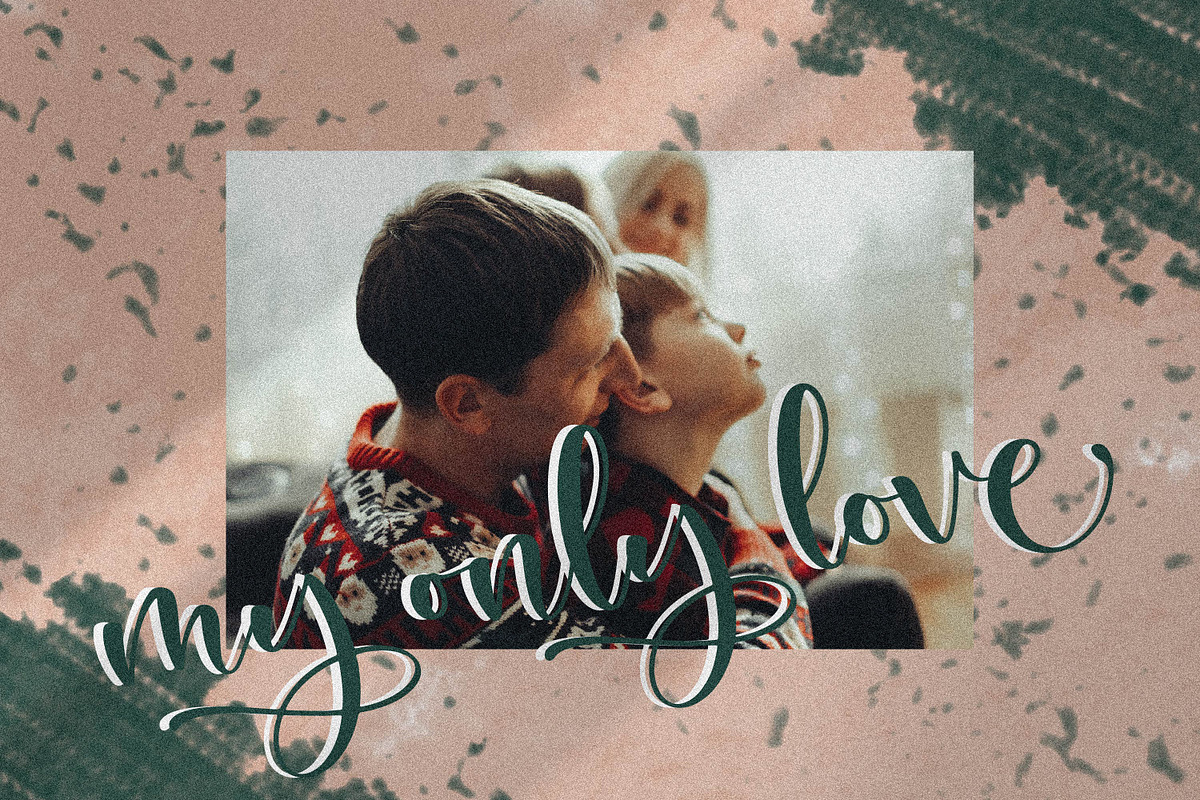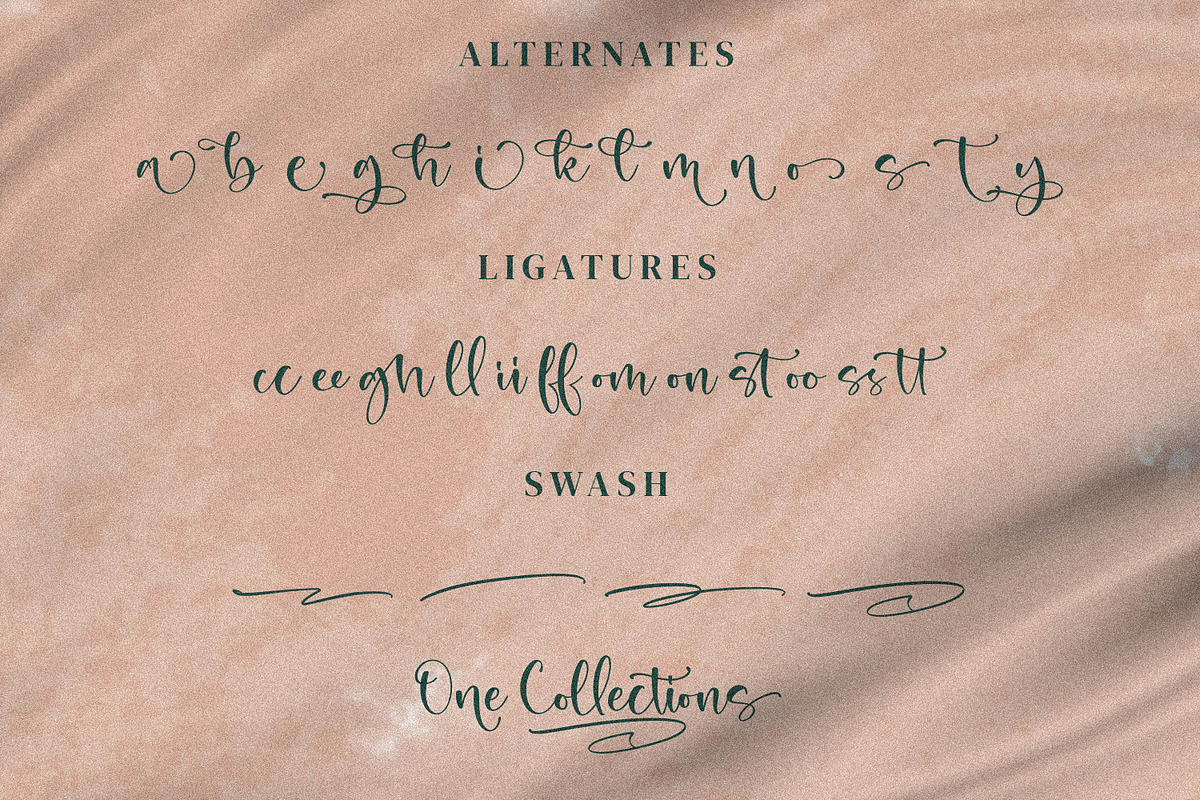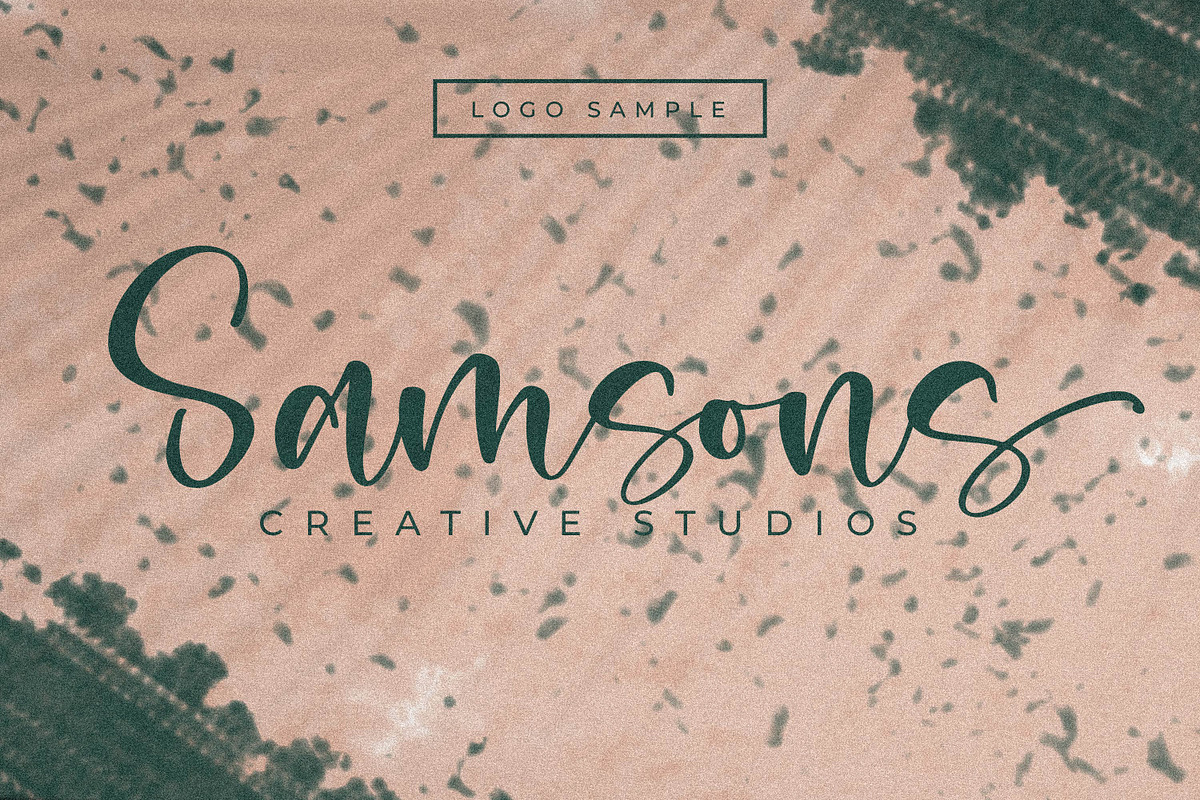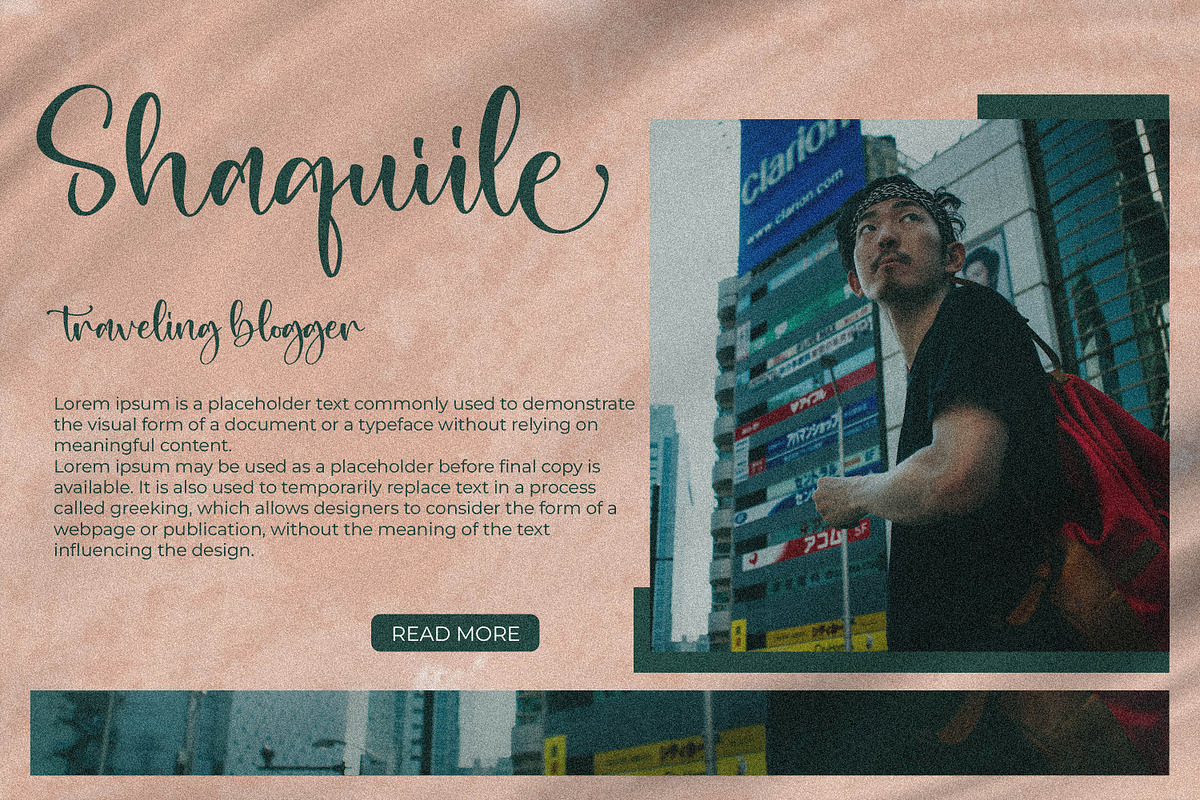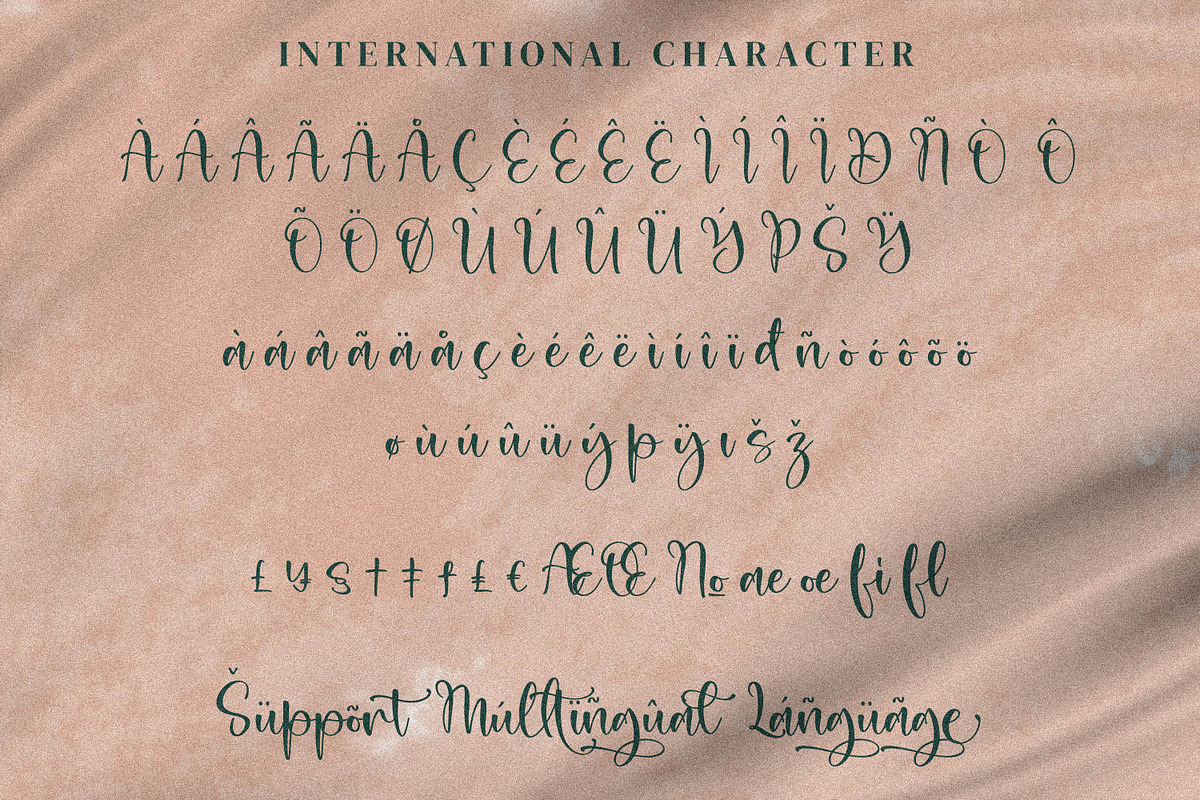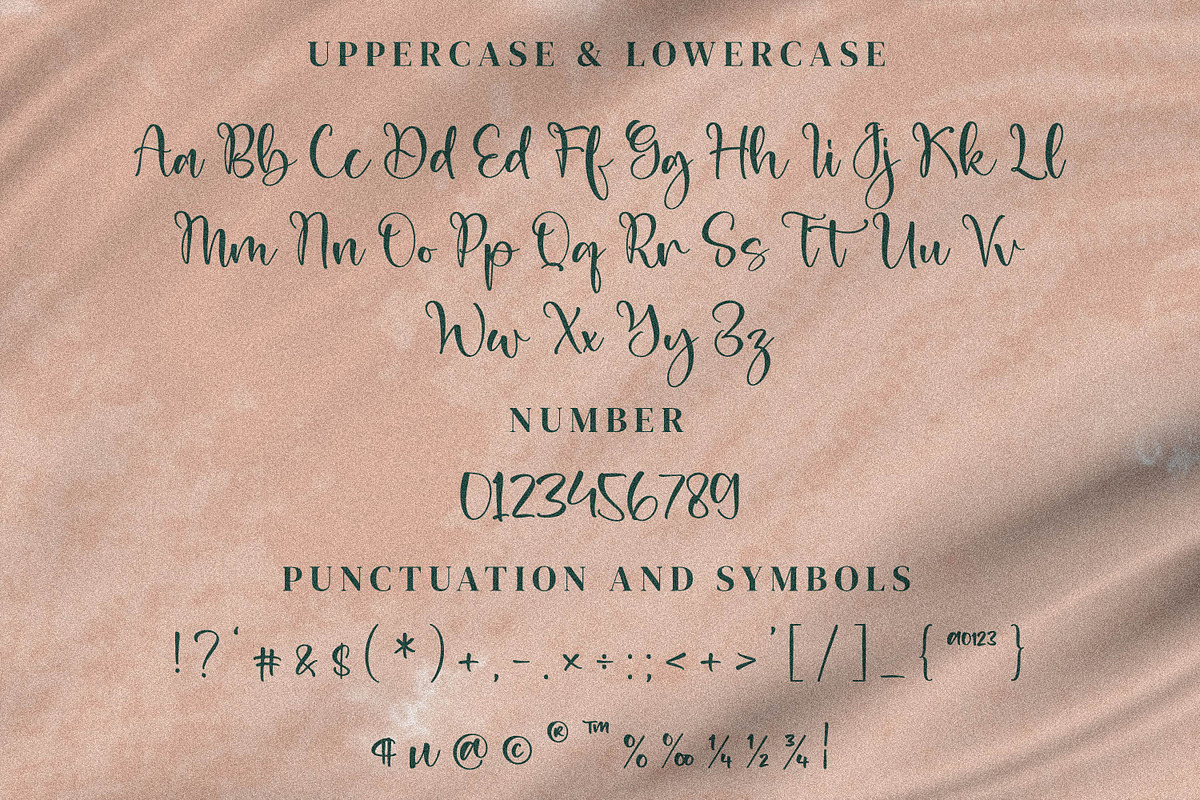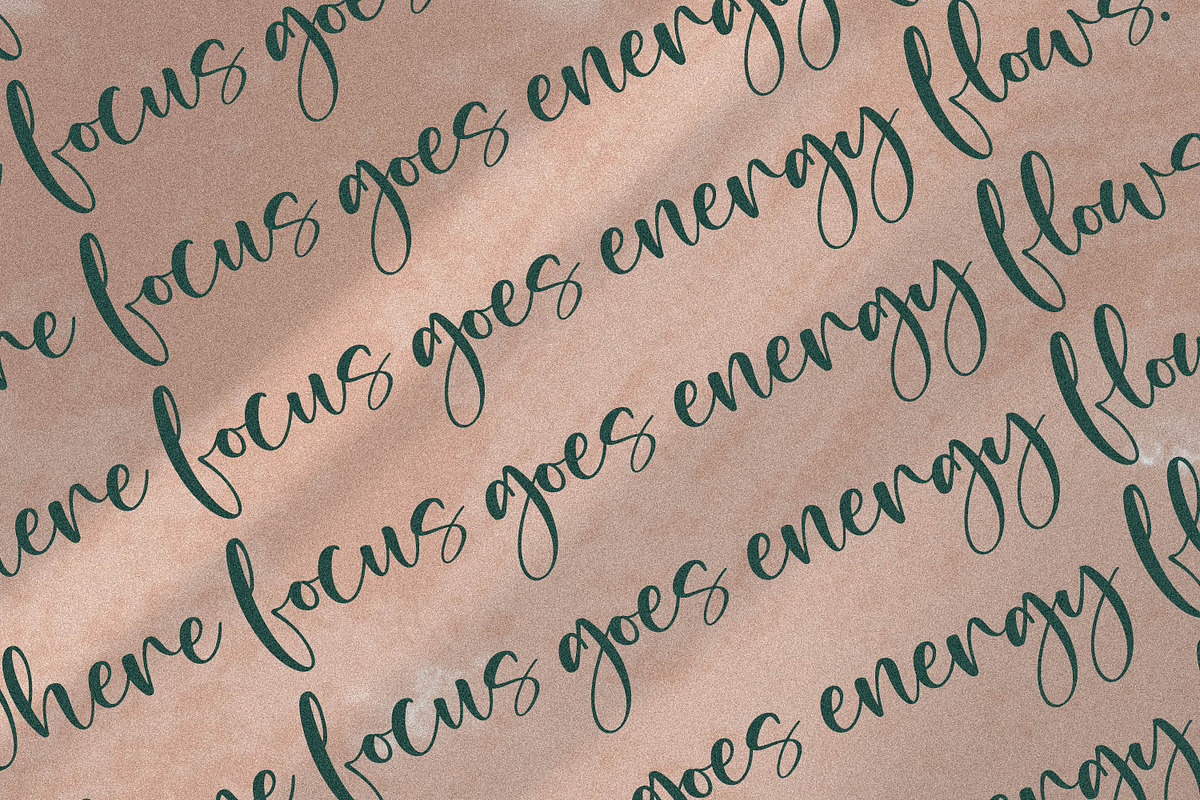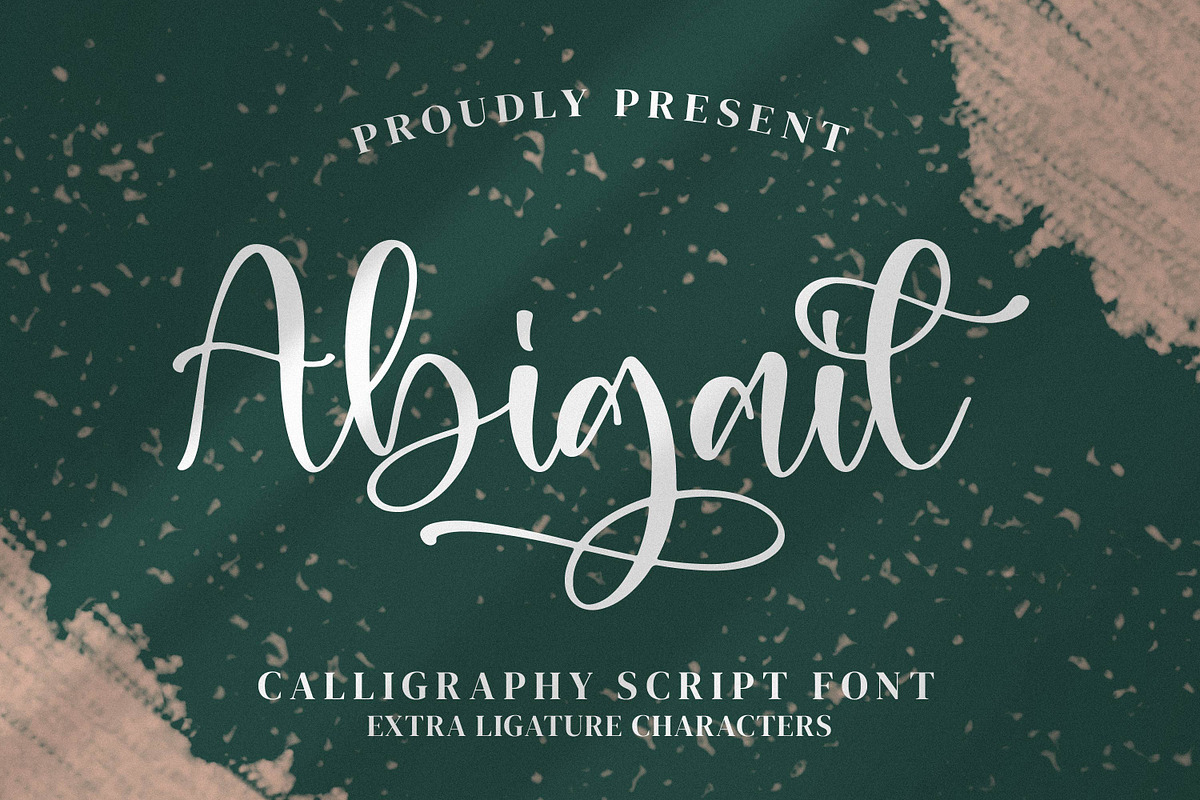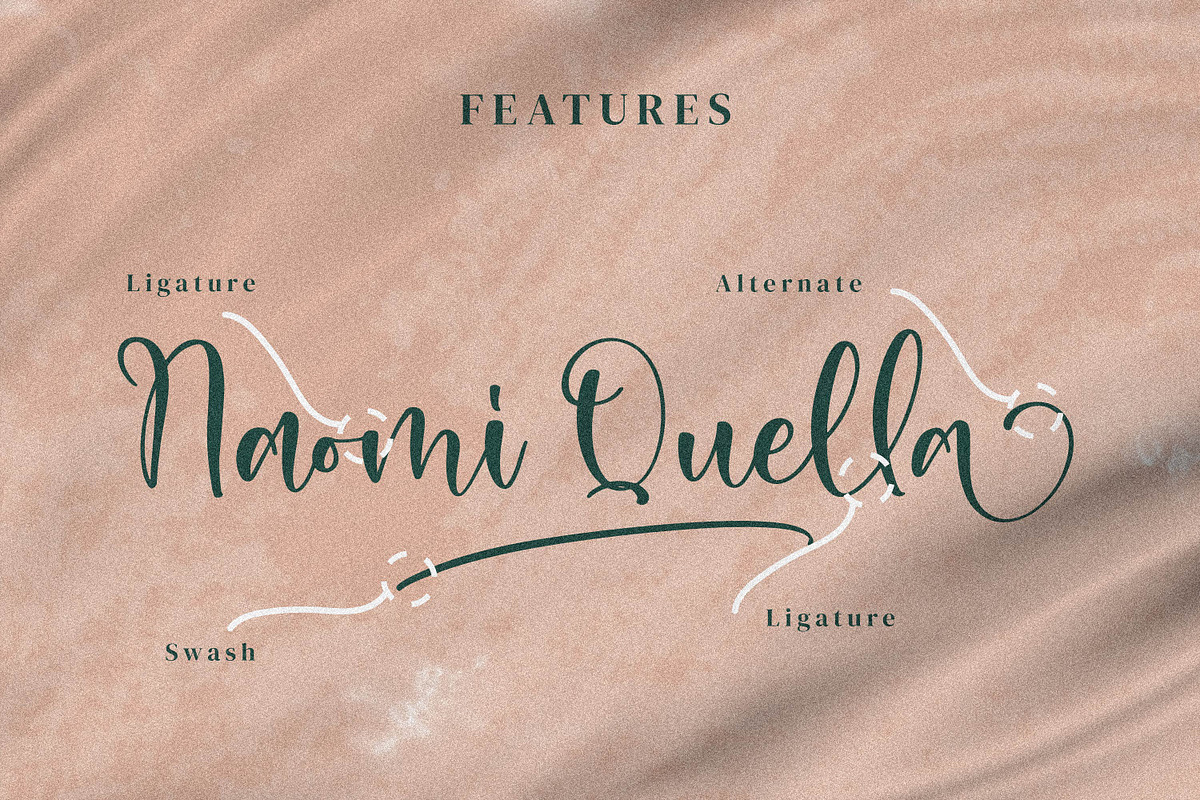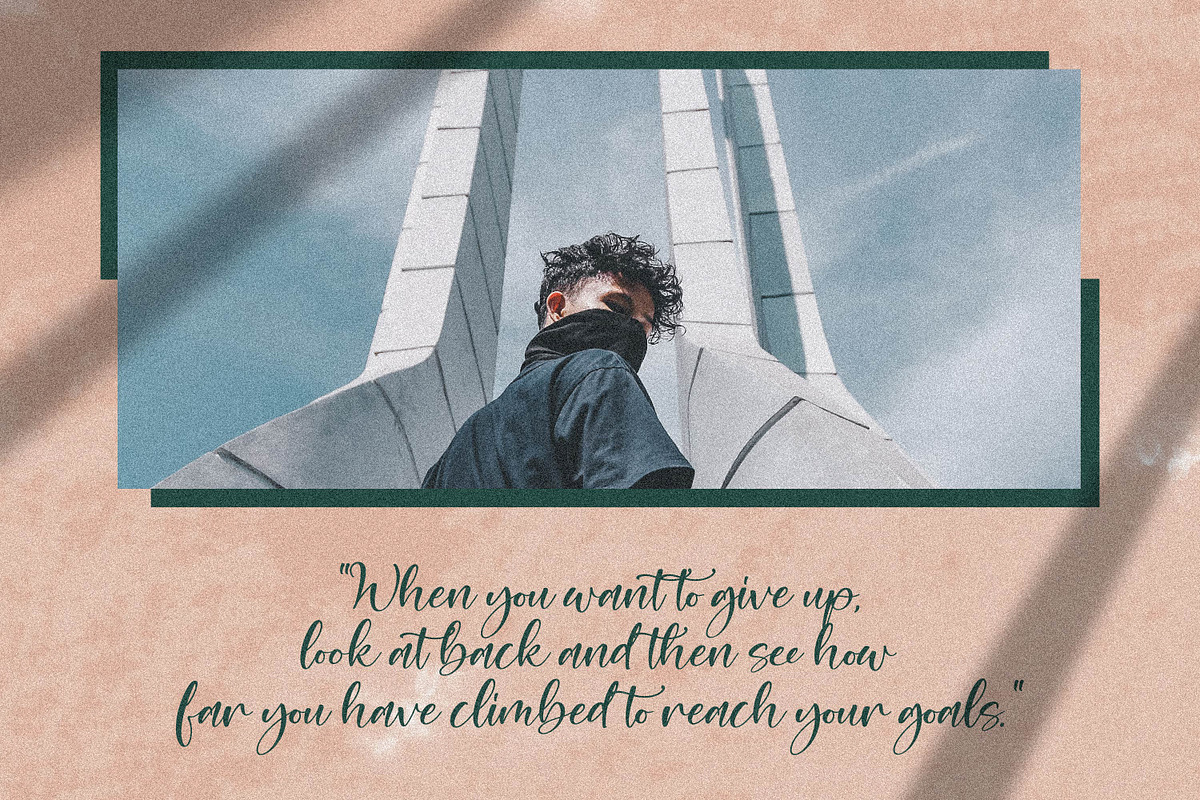
Abigail
Abigail - Calligraphy Script Font, from Integritype Studio, is a premium Calligraphy Script Font, perfect for any project like: logos, branding projects, homewares designs, product packaging, mugs, quotes, posters, shopping bags, t-shirts, covers books, business cards, invitation cards, greeting cards, labels, photography, watermarks, special events and all your other luxury projects that require a premium taste.
Ligature, Alternate & Swashes